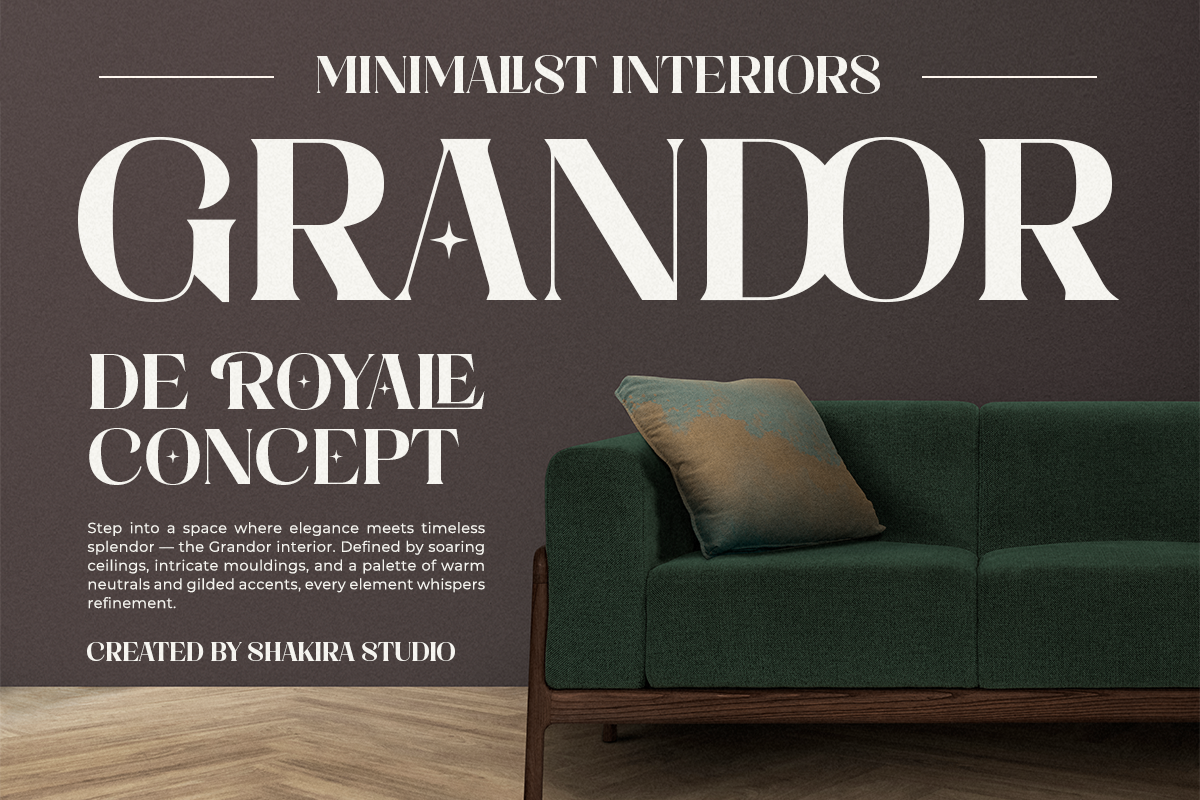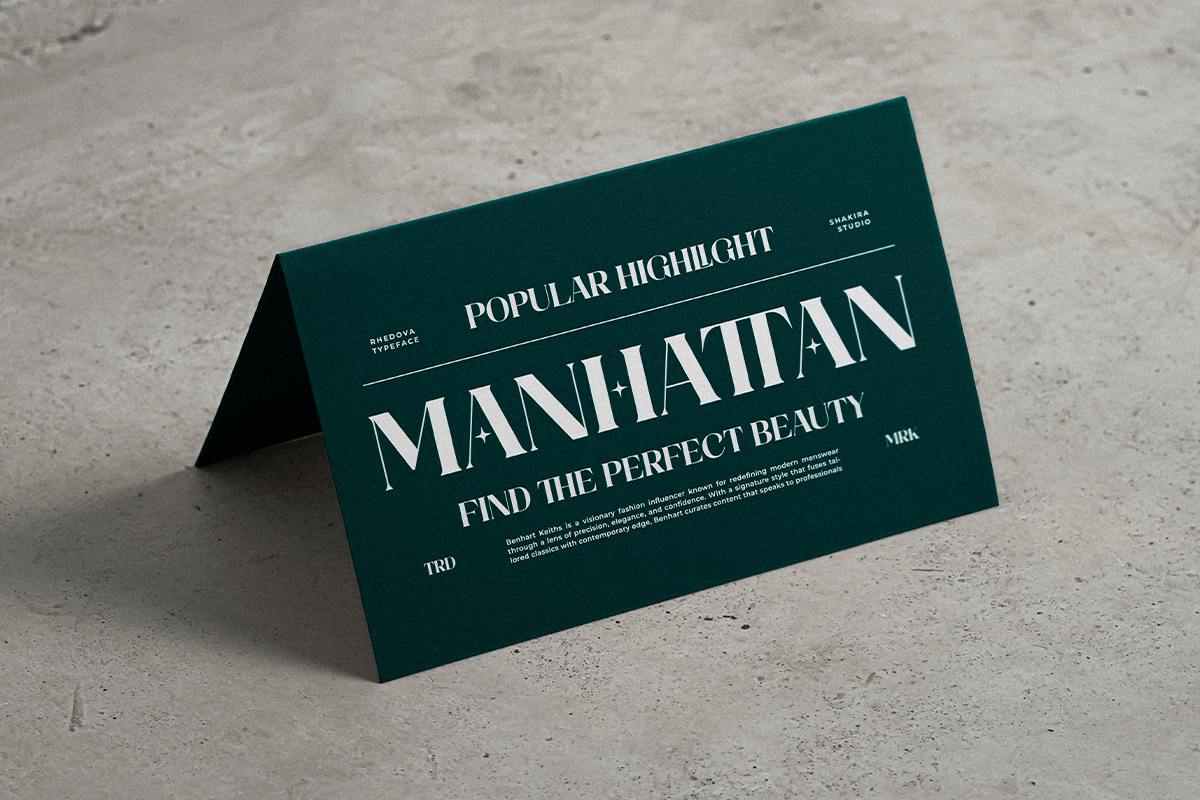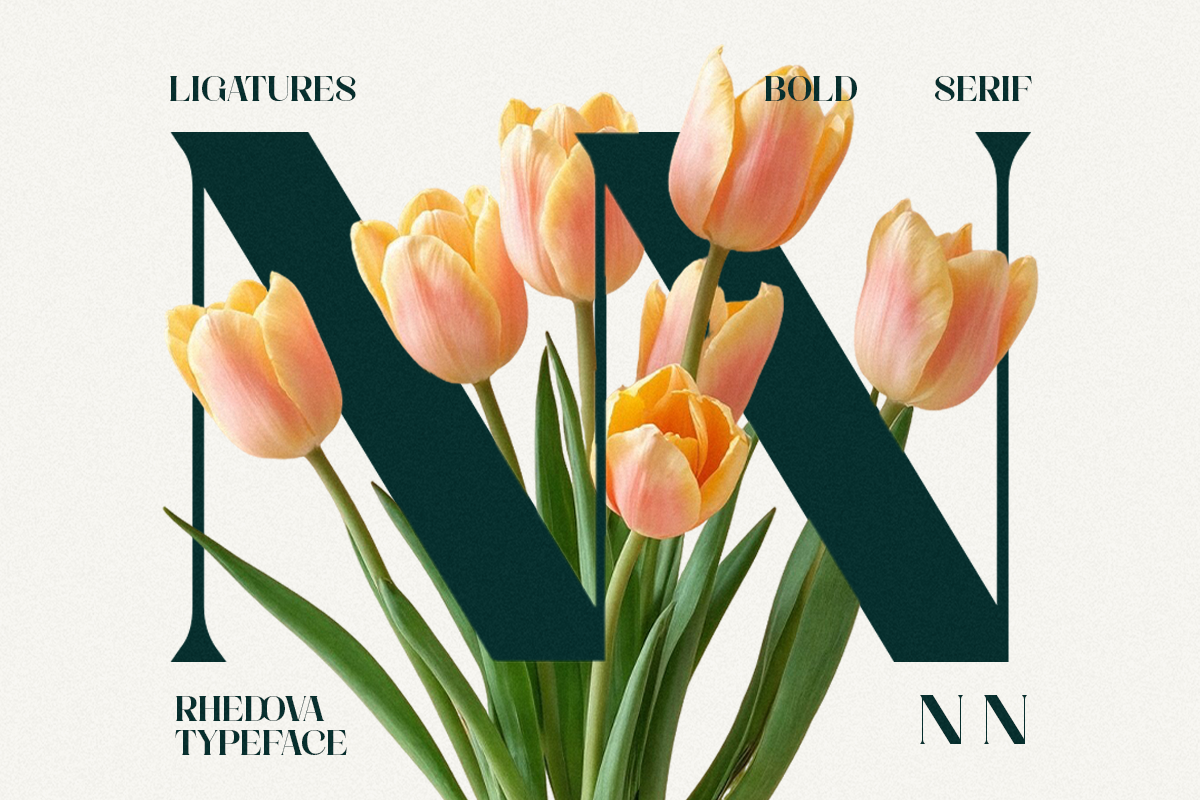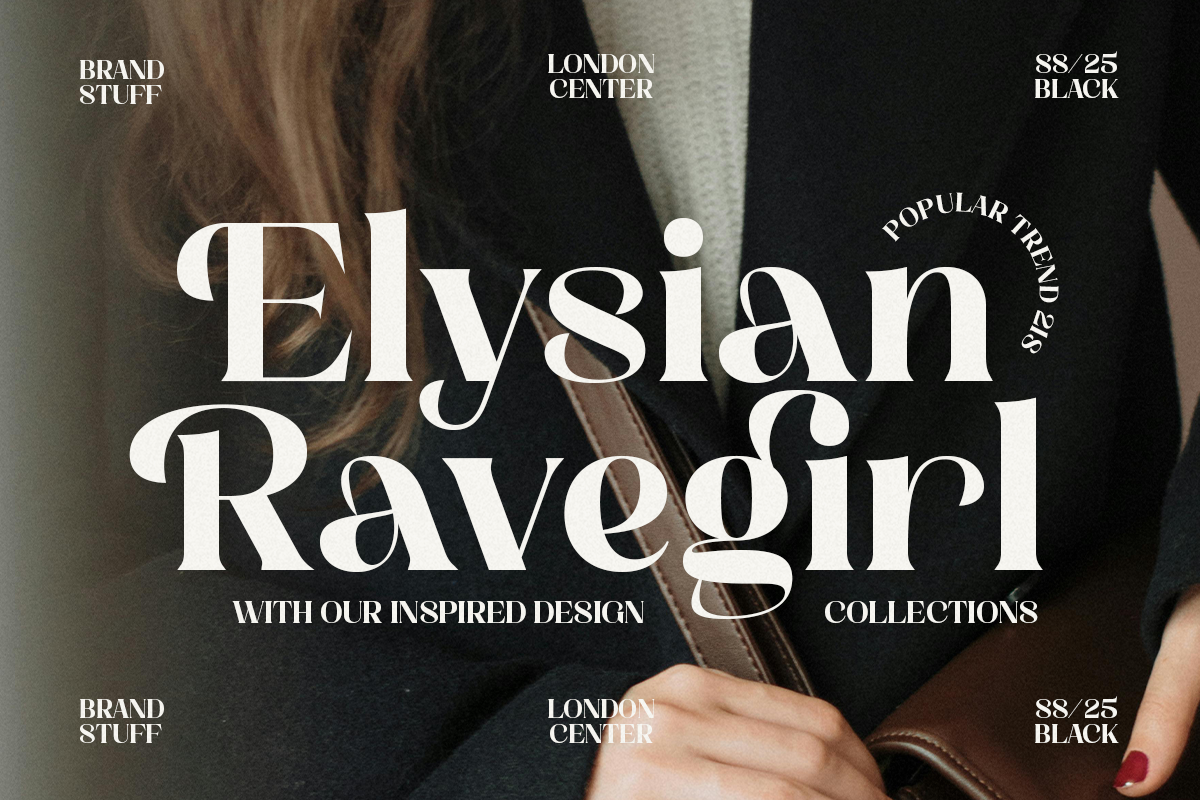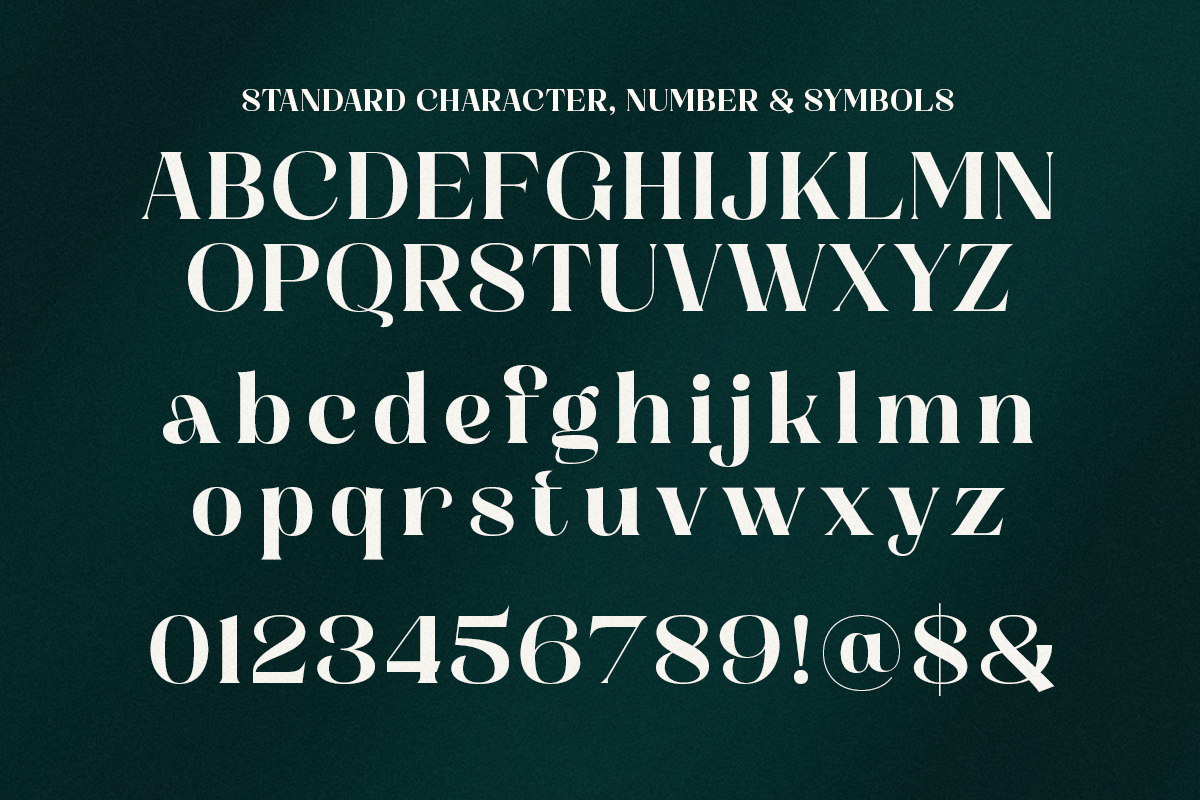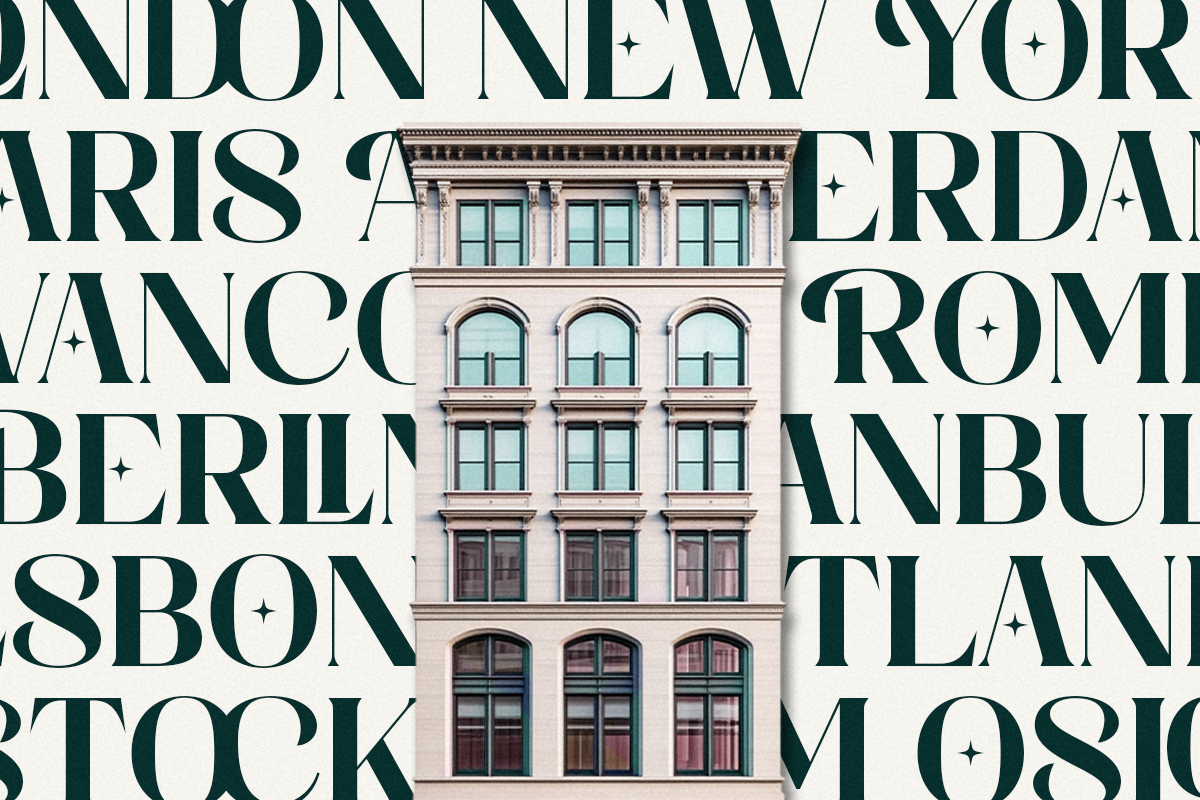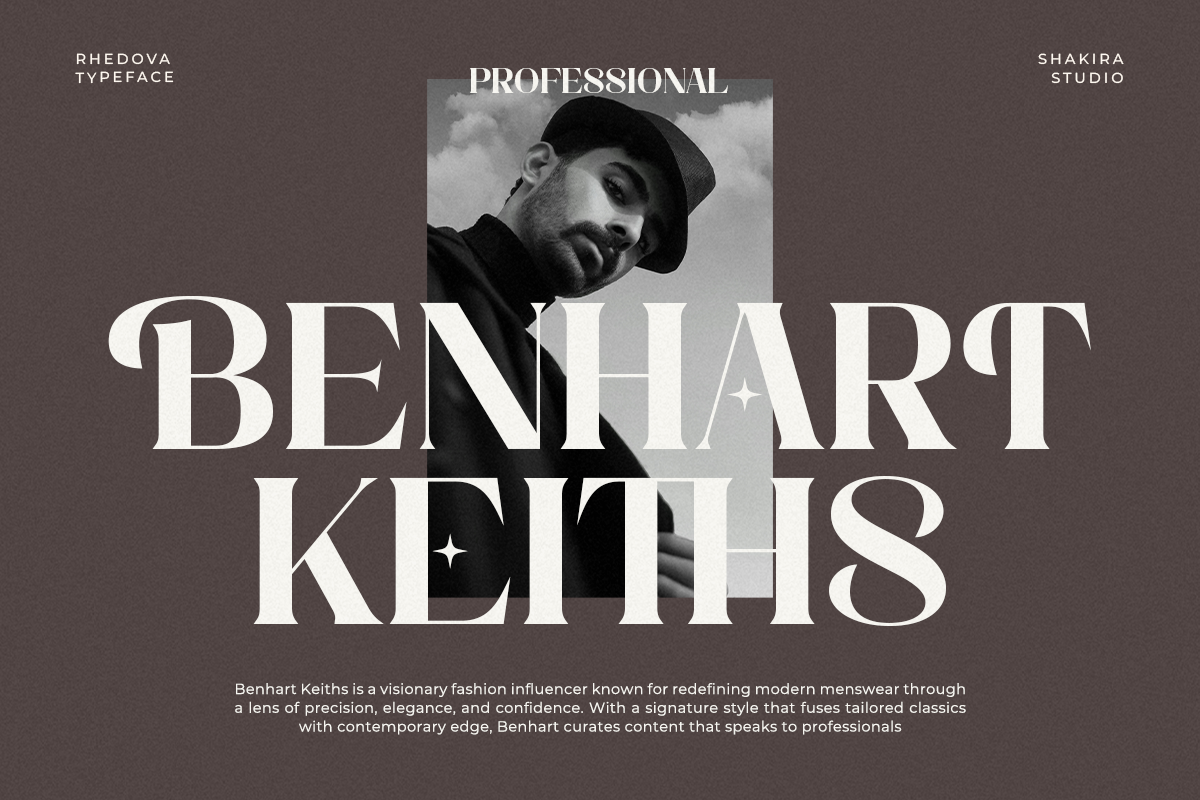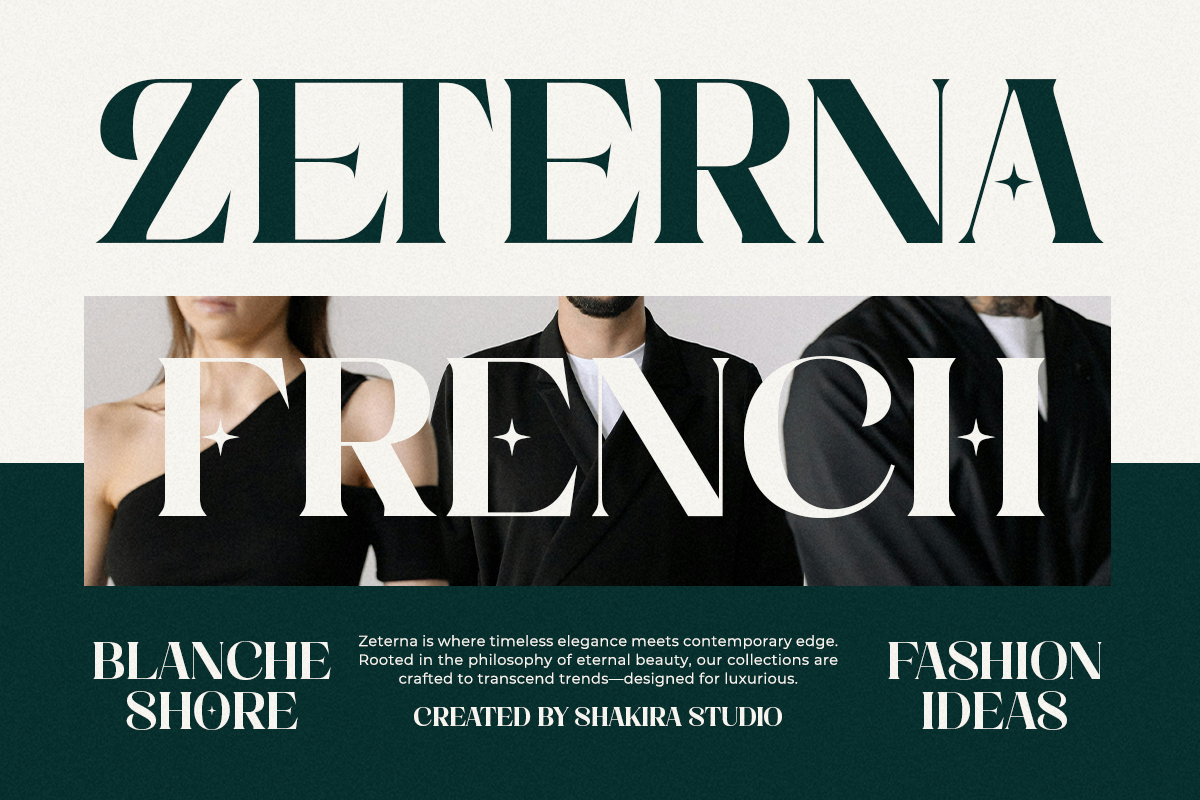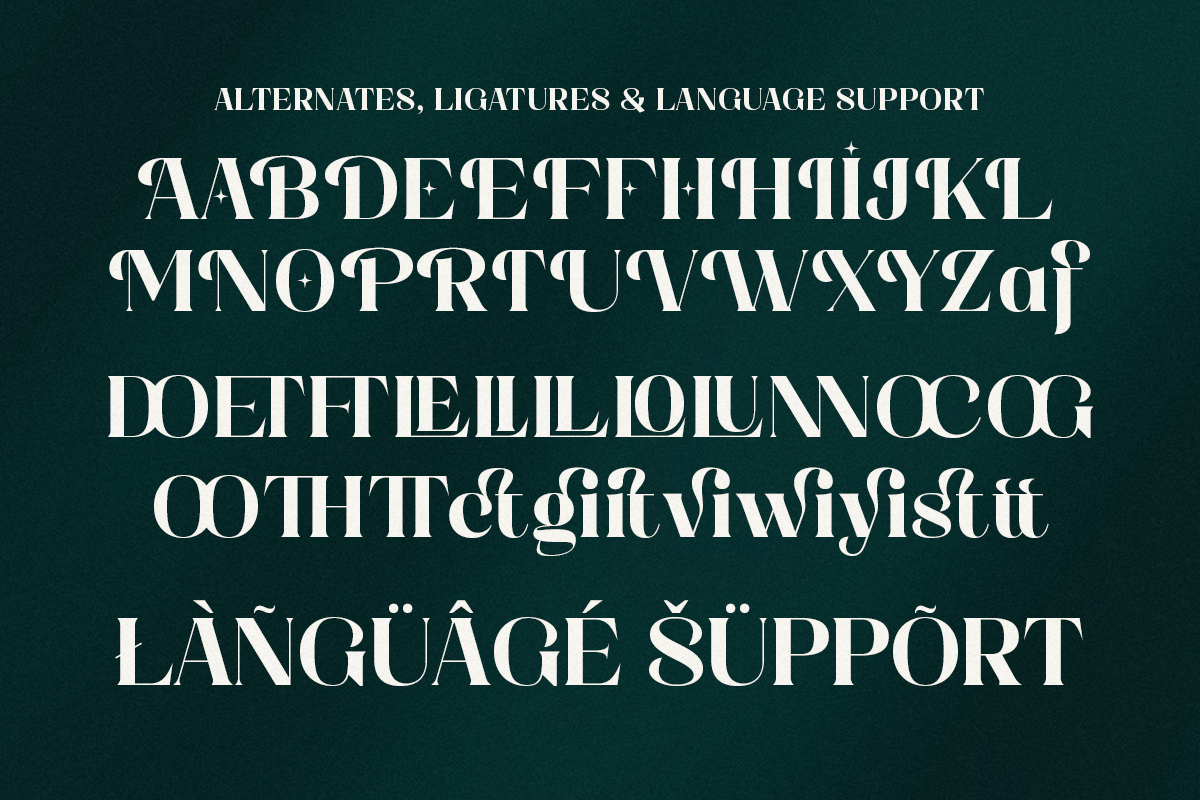
Rhedova - Modern Bold Luxury Serif
Meet Rhedova, a modern serif typeface that exudes confidence and luxury. With its high contrast strokes and refined letterforms, Rhedova brings a bold yet elegant tone to any project. Perfect for logos, magazines, fashion campaigns, and premium product packaging, this typeface creates a lasting impression.
- Regular & Italic
Perfect For: Editorial headlines, branding logos, fashion advertising, magazine covers, and luxury packaging.